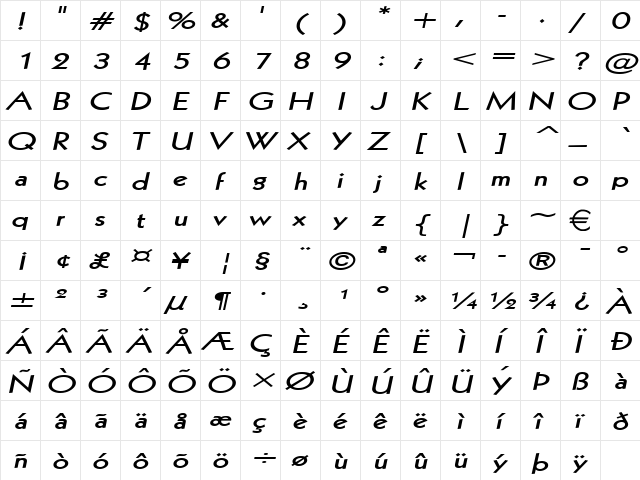
Geo112Extended BoldItalic
Design Context for Geo112Extended Typeface
Geo112Extended is a composed and adaptable typeface that performs quietly and consistently across a wide range of design contexts. The dynamic lean of this cut emphasises speed and emphasis in any layout. Its bold stroke weight gives it real presence on the page.
Pro Tip: Use Geo112Extended for emphasis, pull quotes, and subheadings where its slanted energy can add rhythm to the layout.